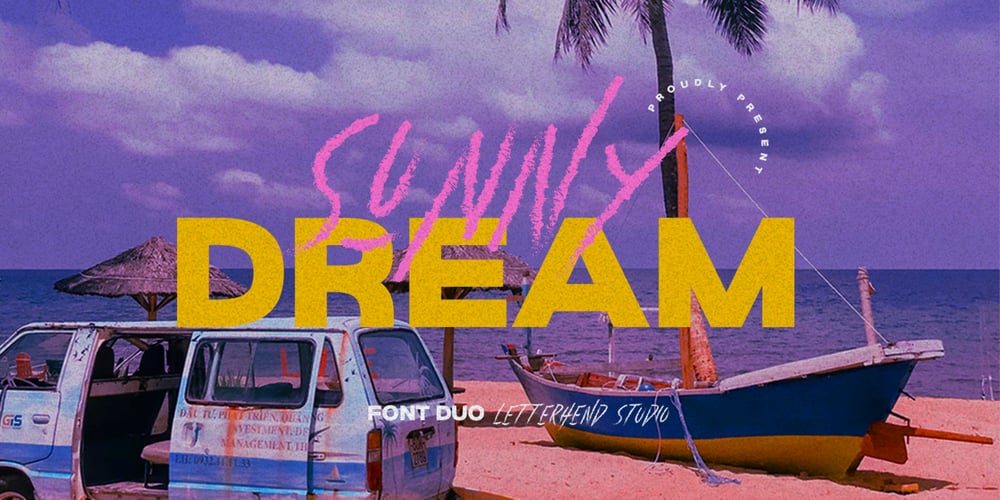
Sunny Dream
Sunny Dream font
Sunny Dream Font Family was designed by Hendry Juanda and published by Letterhend. Sunny Dream contains 2 styles and family package options. Sunny Dream is a font duo package contain a bold sans serif with rough script which looks great to be paired especially for vintage and adventure theme! This font duo is purposely made for headline, display or logotype, and signature which need a standout appearing. This font is also suitable to be applied especially in logo, and the other various formal forms such as invitations, labels, logos, magazines, books, greeting / wedding cards, packaging, fashion, make up, stationery, novels, labels or any type of advertising purpose.Features : Bold and Script uppercase & lowercase numbers and punctuation multilingual alternates & ligatures PUA encoded We highly recommend using a program that supports OpenType features and Glyphs panels like many of Adobe apps and Corel Draw, so you can see and access all Glyph variations.